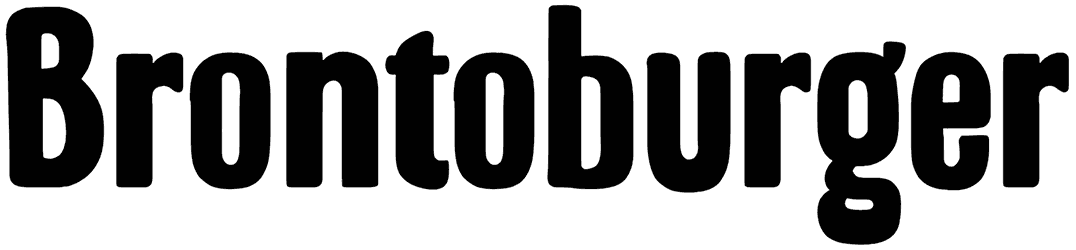
Brontoburger Font
Brontoburger would be the shining example of adding a touch of innovation to a casual sans serif font. This masterpiece turns your artwork such as book covers, magazines, illustrations, stickers, and editorial projects into a lovely piece of drama. Aside from all its numerous benefits, this rounded font has the real potential to add a sense of youth, vivacity, jauntiness, and dynamism to your work.
by Dennis Ludlow
Take a big bite out of Brontoburger! This 3 member family is defined by its loose, laidback appearance but stops short of being too rough around the edges. Its softened corners produce a warm, friendly look suitable for many applications. Brontoburger is playful enough to be featured on toy packaging but suitable for business cards as well. Try the 3D Extrude version for a book cover or poster.